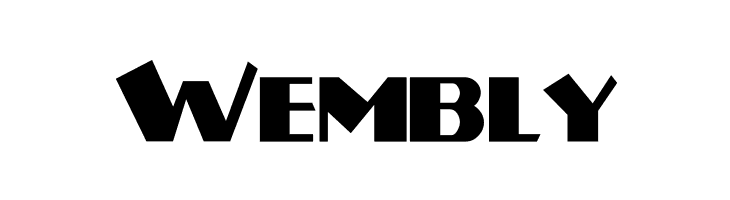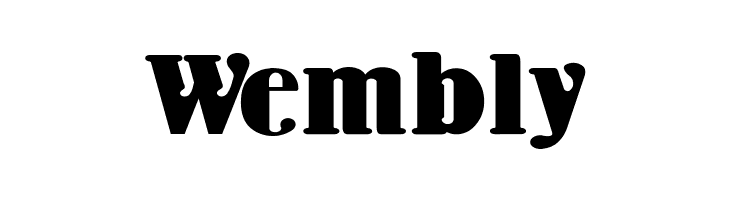
• WoodenNickelBlack
A bold, vintage-style serif font with strong, blocky serifs and a commanding presence.
• Plug-NickelBlack
A bold, geometric font with sharp angles and modern flair.